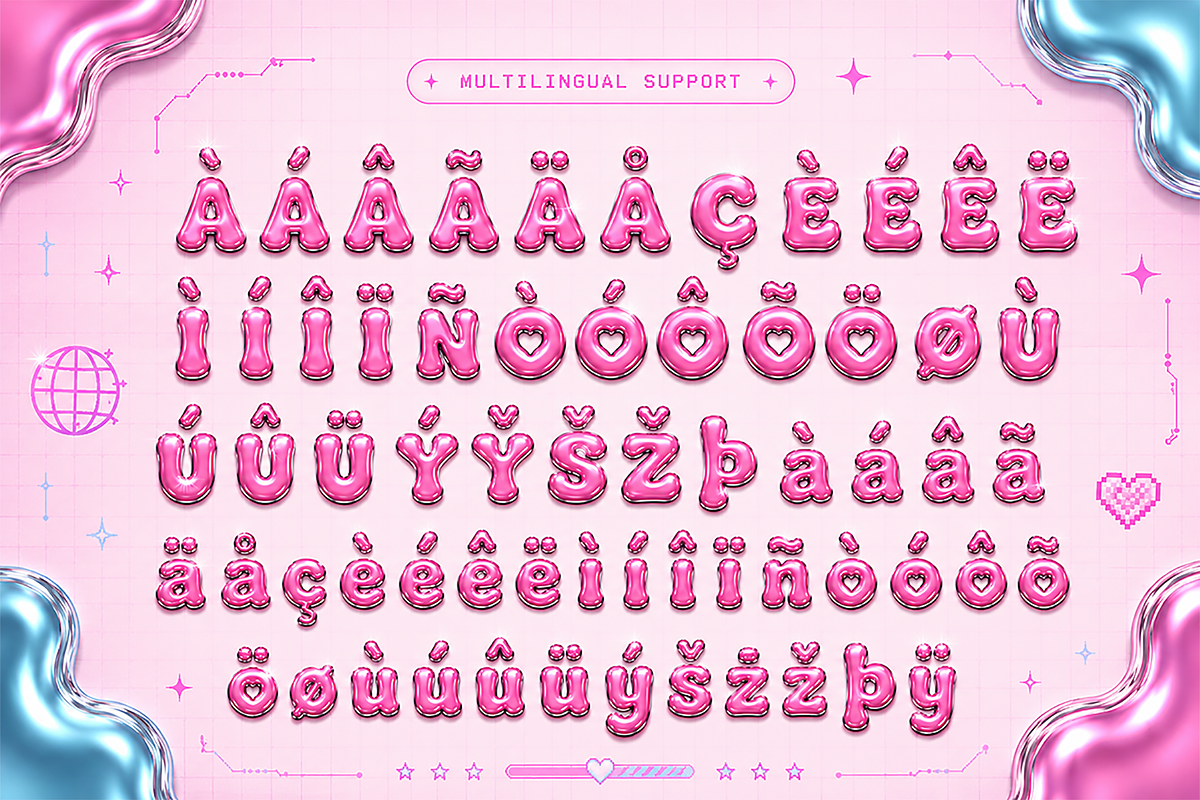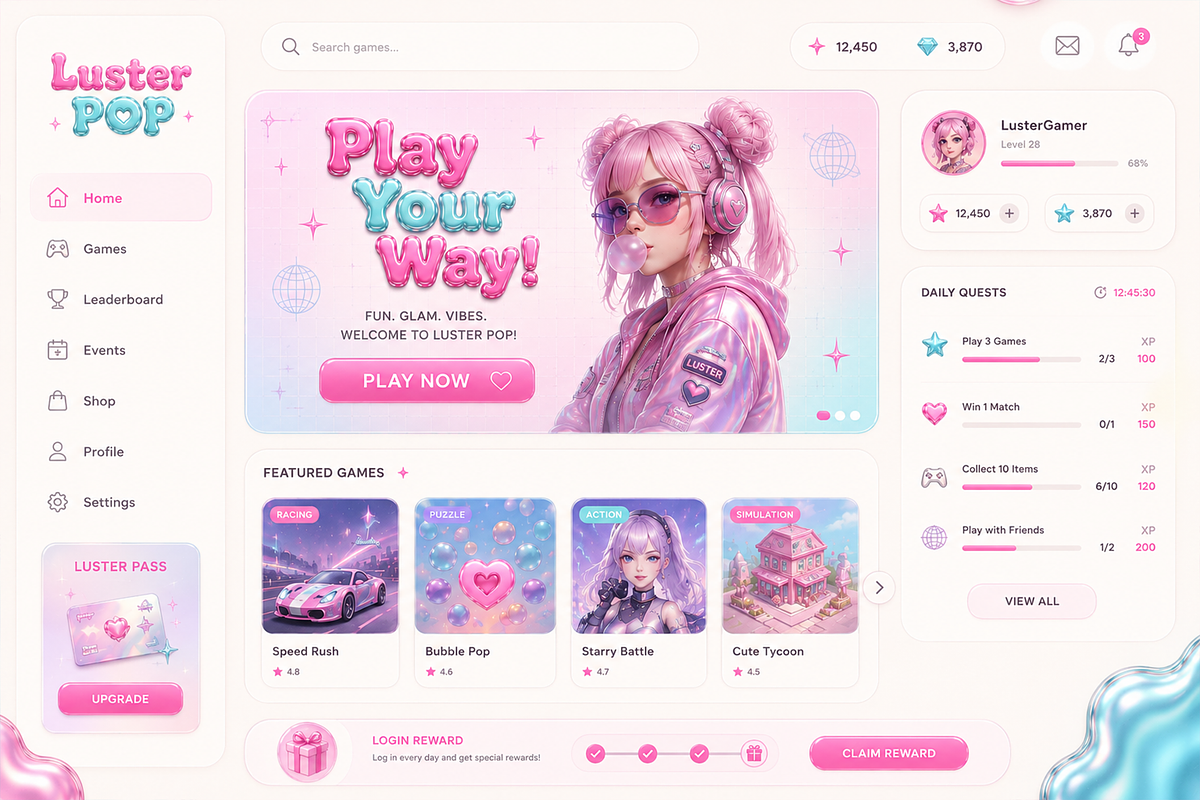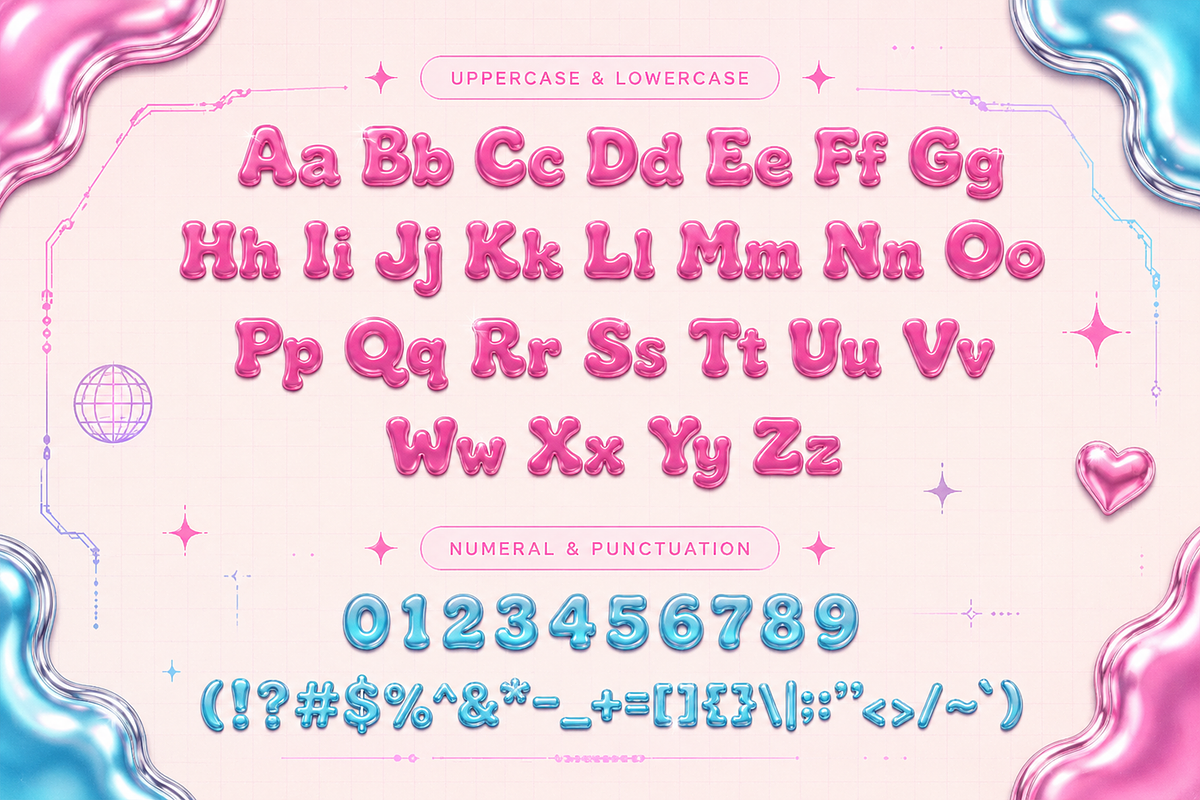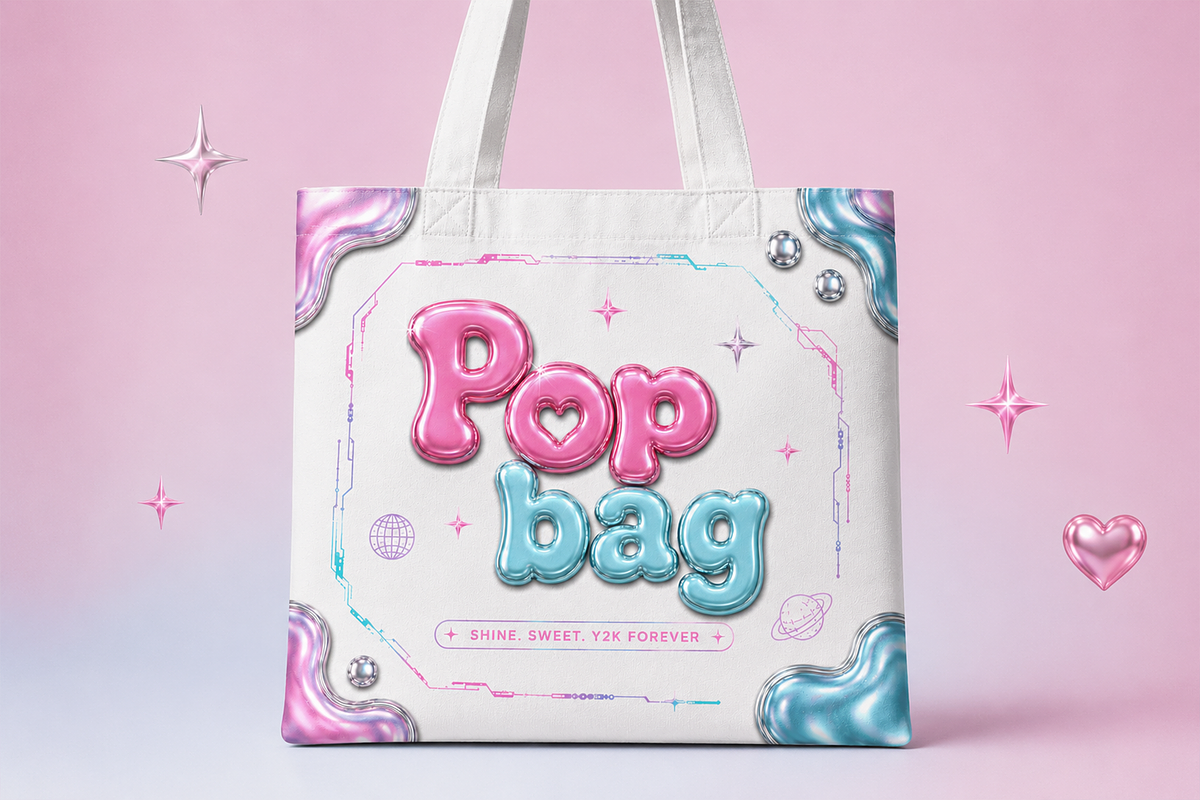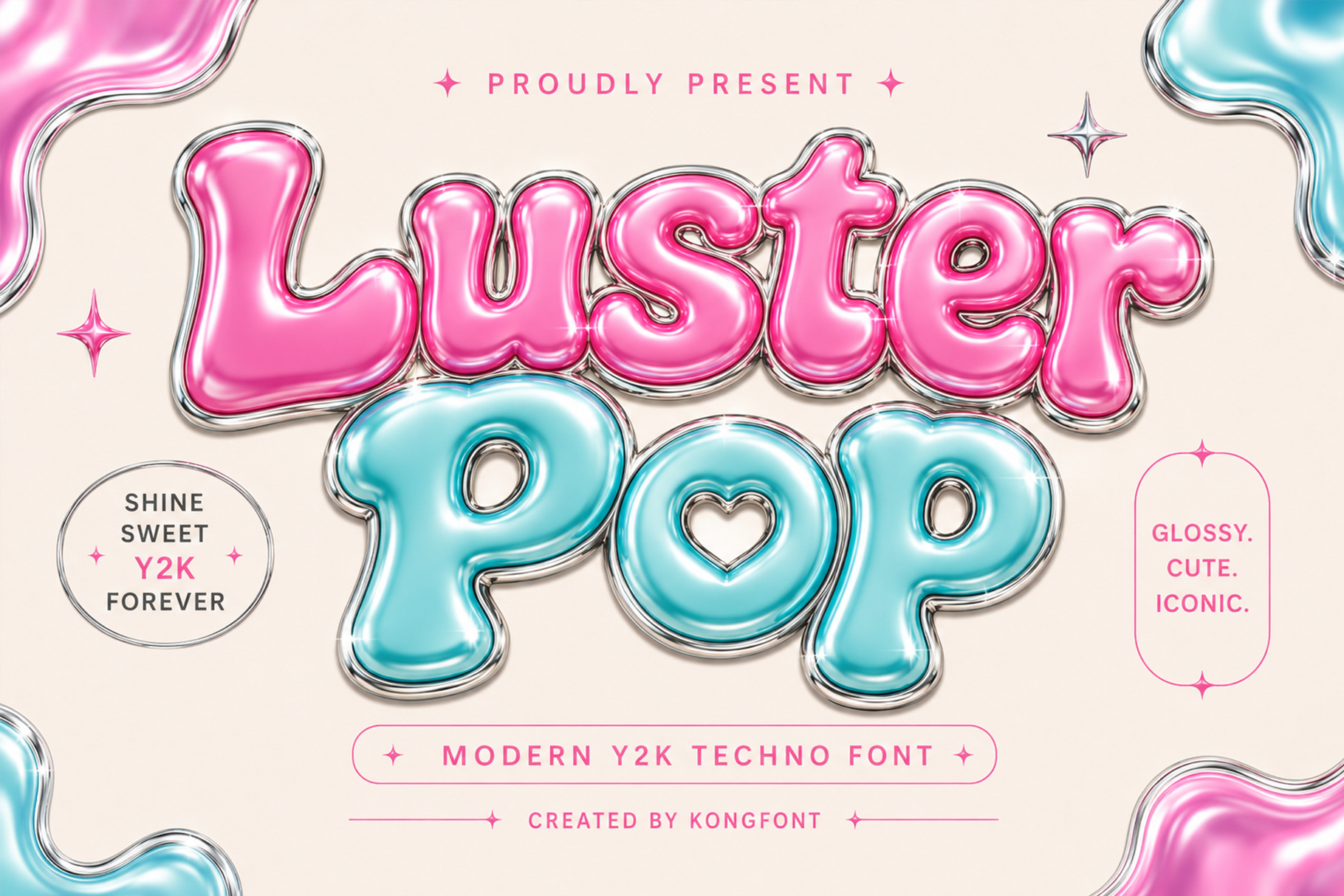
Luster Pop - Modern Y2K Techno Font
Luster Pop is a modern Y2K techno font that captures the vibrant spirit of early 2000s digital culture with a sleek futuristic twist. Featuring bold geometric letterforms, dynamic curves, and techno inspired details, Luster Pop delivers a nostalgic yet forward thinking aesthetic perfect for modern creative projects.
Crafted for maximum visual impact, the font includes uppercase and lowercase letters, numerals, punctuation, and multilingual support, ensuring versatility across both print and digital platforms. Whether you're designing a futuristic logo or creating eye-catching promotional graphics, Luster Pop adds a bold retro-tech character that stands out.